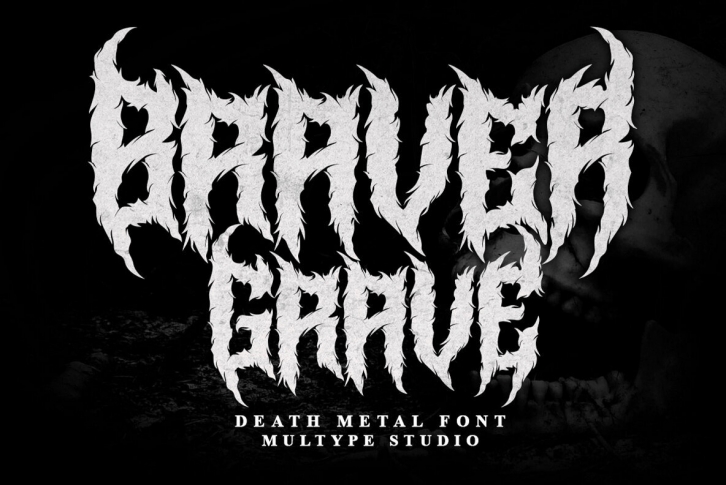
Braver Grave is a death metal font. This font perfect for logotype death metal band, logotype death metal brand, product, merchandise death metal band, death metal band covers, rock events, rock posters, rock magazine covers, branding, product design, labels and other creative project.